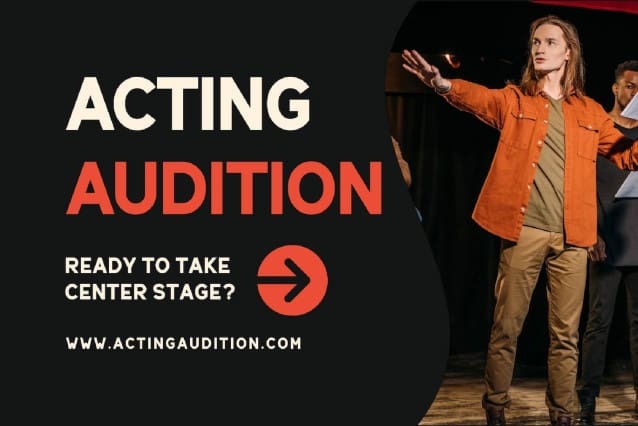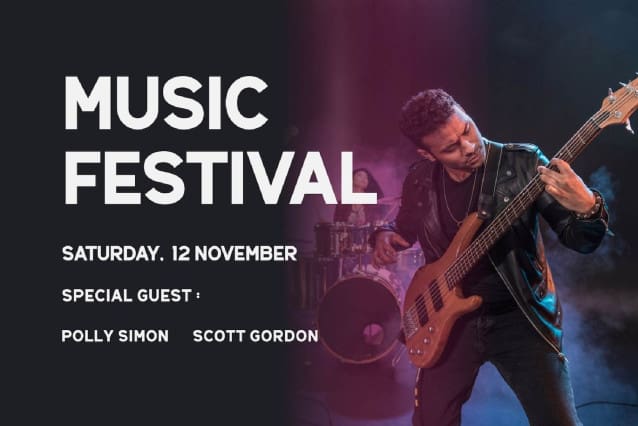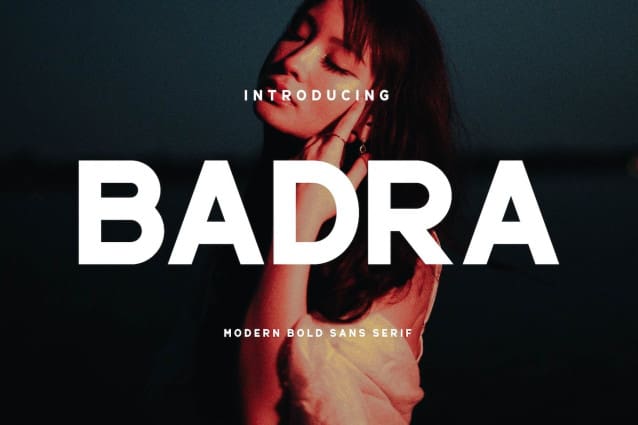
Badra Font
Badra Font inspired by the famous minimalist logo is perfect for designing templates, brochures, videos, advertising branding, logos, invitations, layouts, elegant crafts, home design beauty, etc.